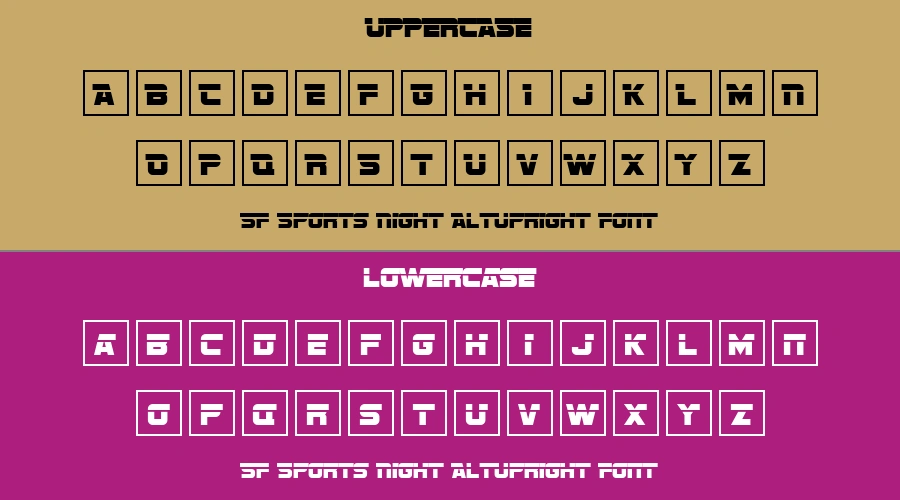
About SF Sports Night AltUpright Font
When typographic excellence matters most, SF Sports Night AltUpright Font delivers through its thoughtful blend of refined proportions and reading ease. Specially crafted for motion graphics, it offers the originality and uniqueness required for sophisticated design work. Every detail serves a purpose.
The character set showcases thoughtful details like clean lines alongside functional classic proportions. This proves especially valuable in sidebars, where emotional response directly influences results. Particular attention was paid to spine curvature and character during development.